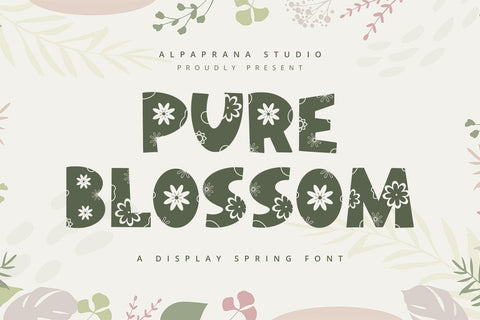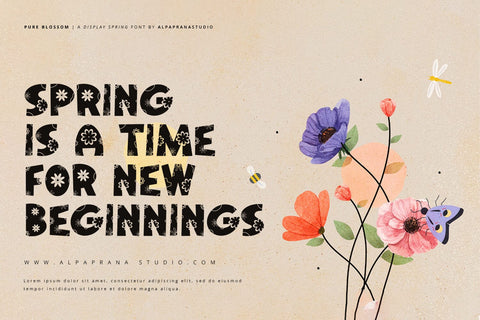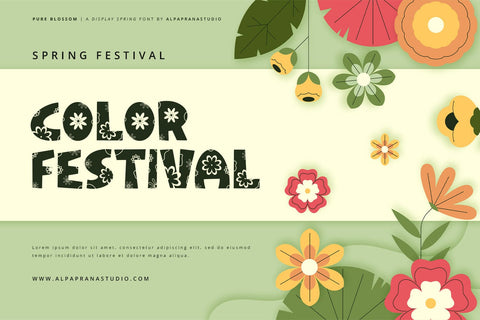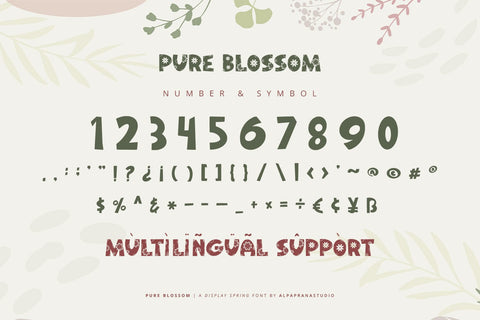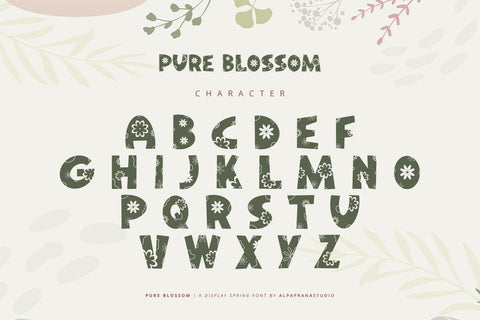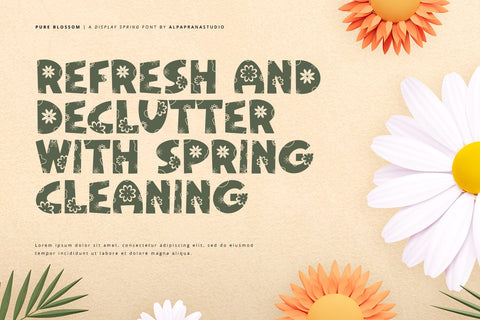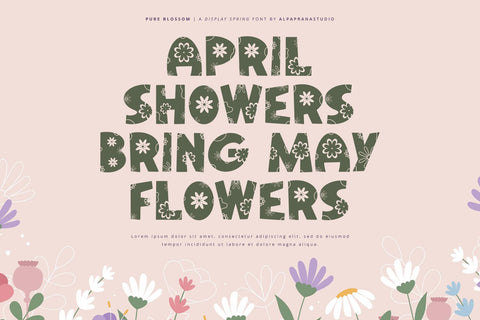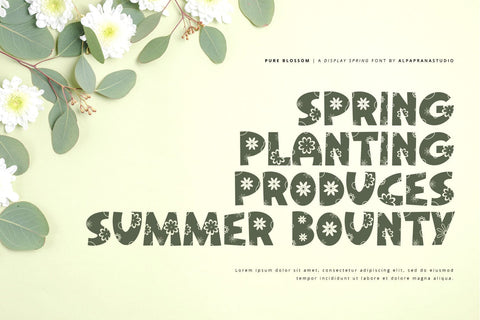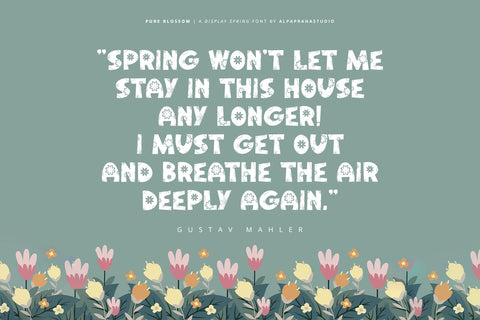
Pure Blossom - Decorative Display Font
Pure Blossom is a decorative display font with cute and modern feels. It will be perfectly used for Branding, Logo Design, Lettering, Logotype, Clothing, Poster, magazine, packaging, posters, shopping bags, t-shirts, book covers, photography, special events and other design project.